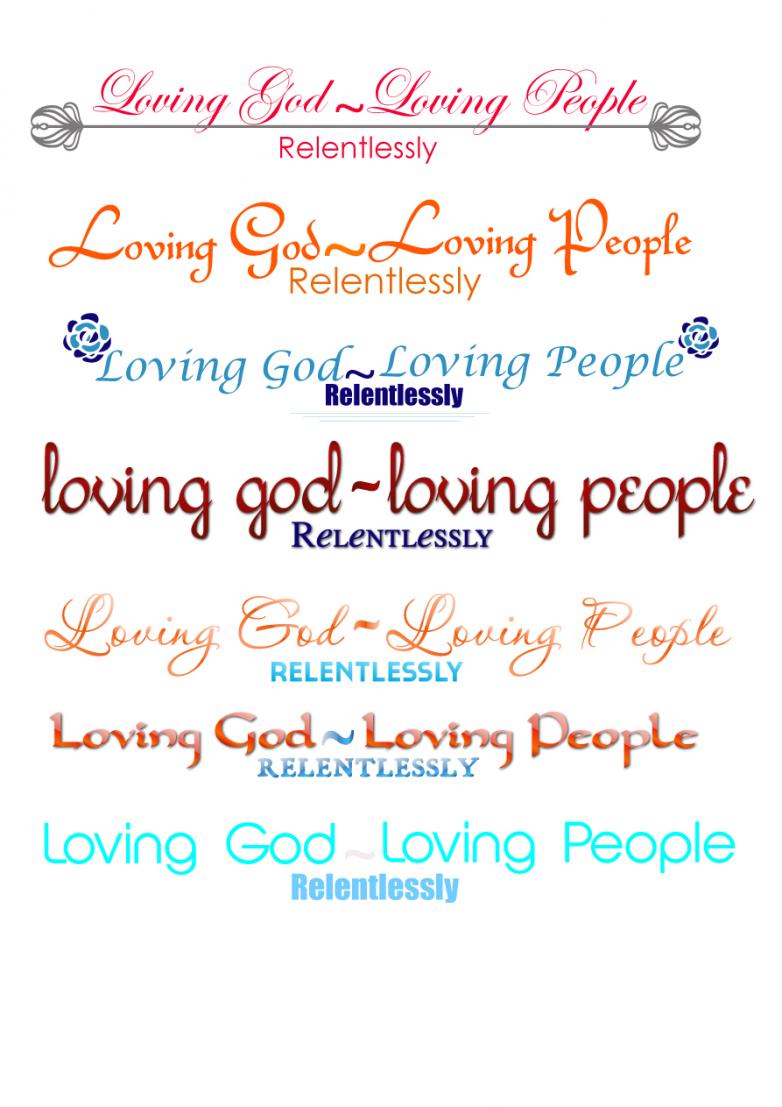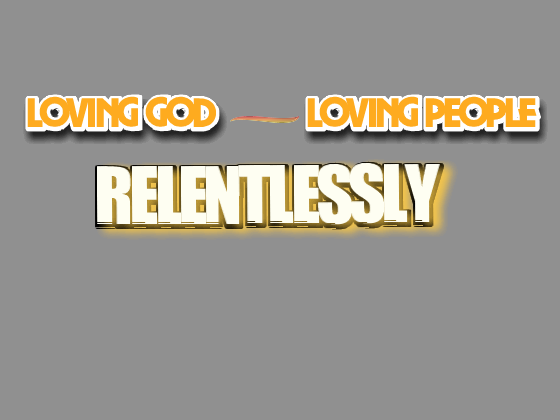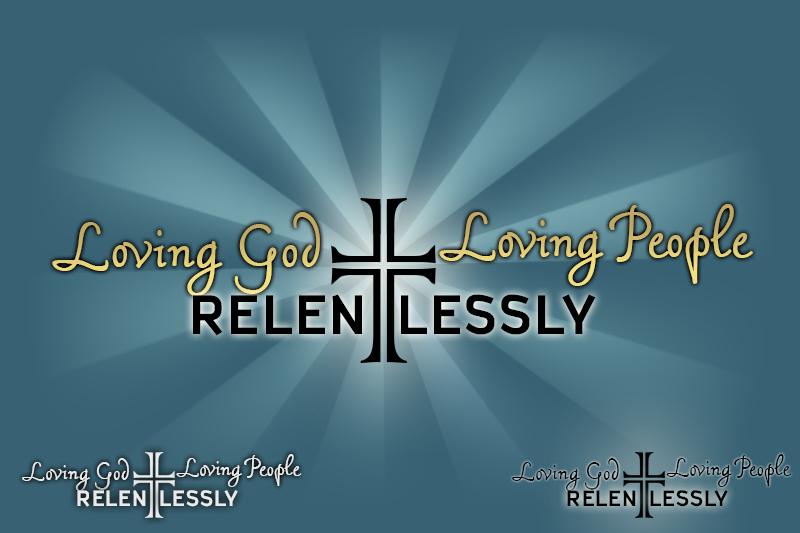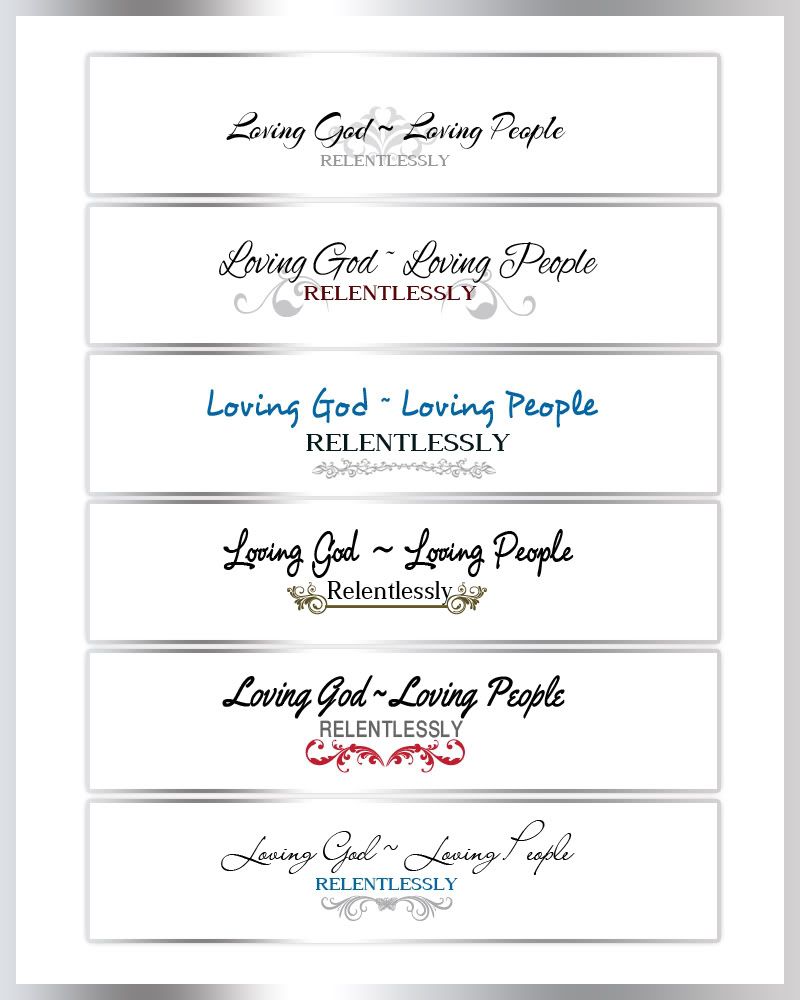
Loving God ~ Loving People
Relentlessly
Looking for a warm, (maybe handwritten) font for "Loving God ~ Loving People", and then under it with a little bodness or splash, "Relentlessly".
font: PlazaPUlt (loving God Loving People)
Impact (Relentlessly)
Design Proposition for LOVING GOD ~ LOVING PEOPLE: